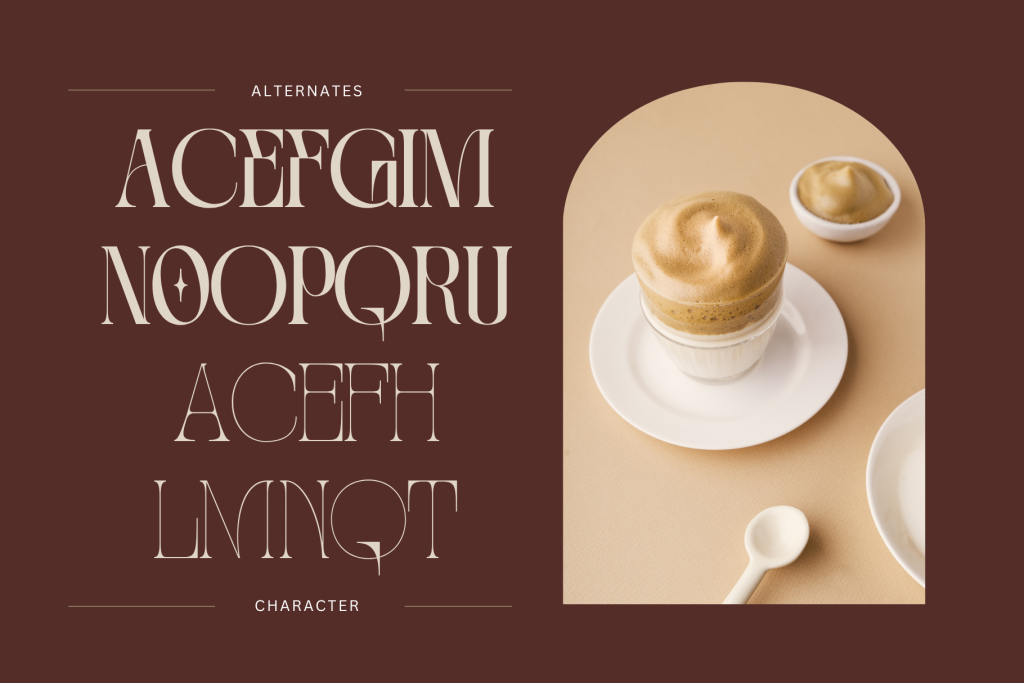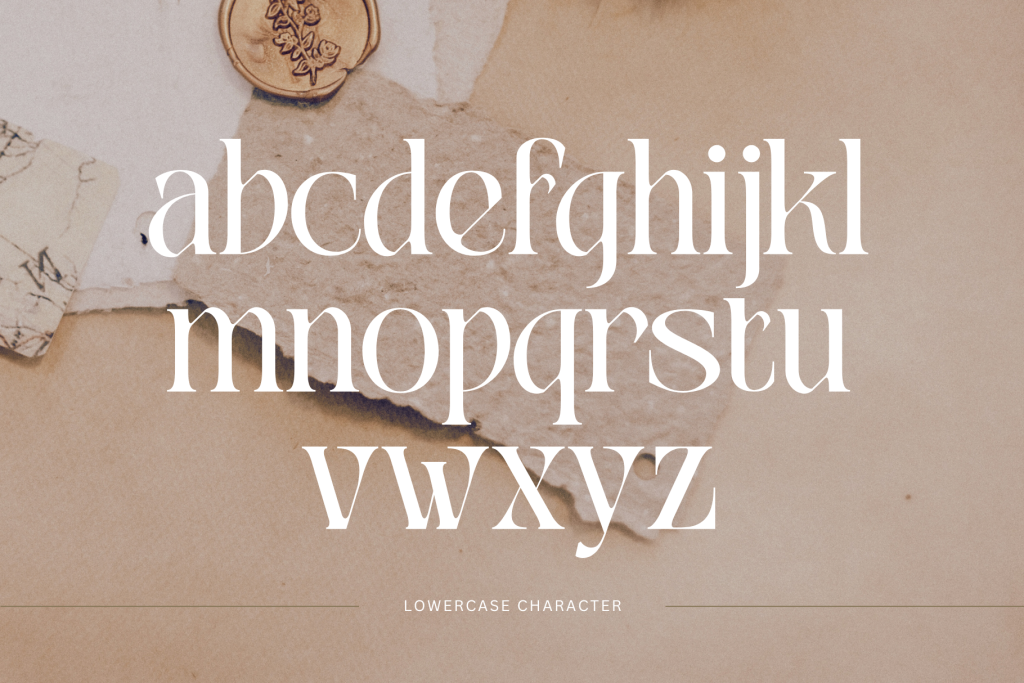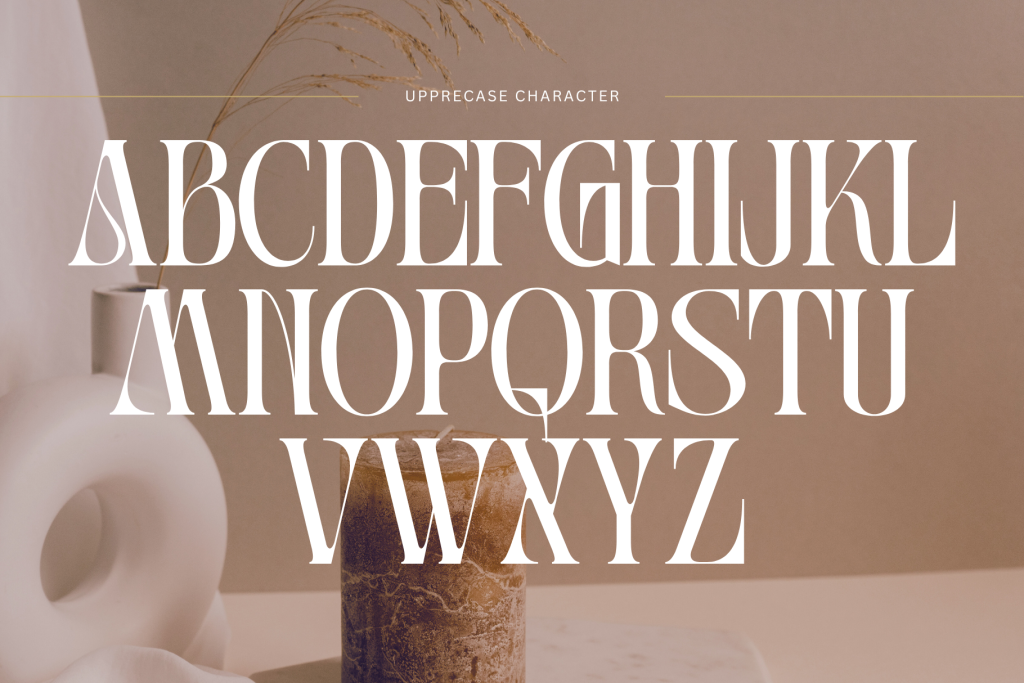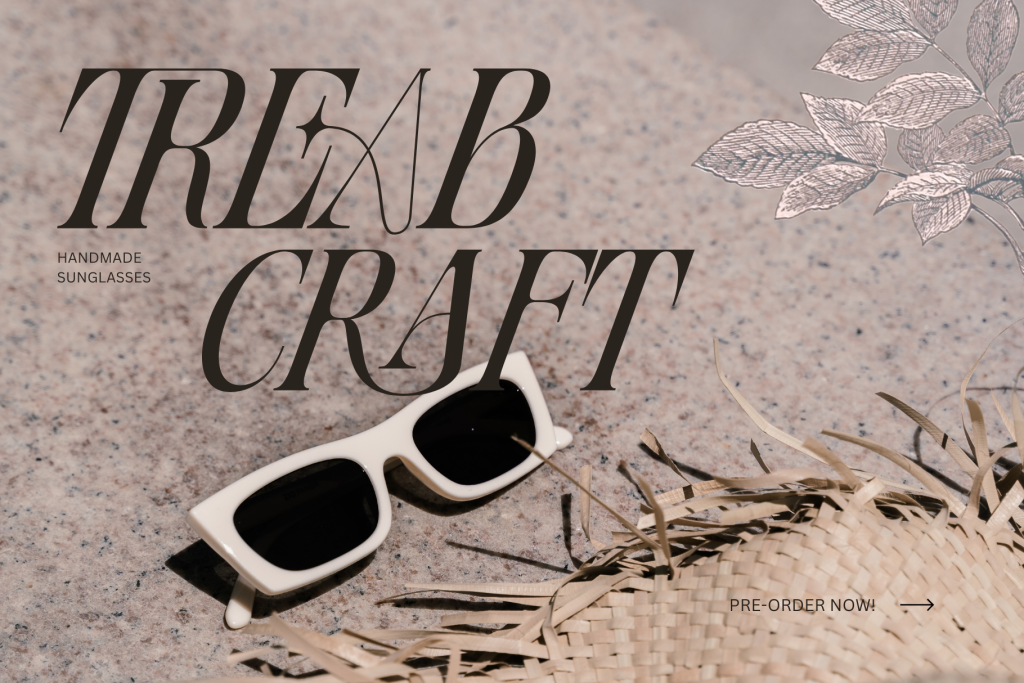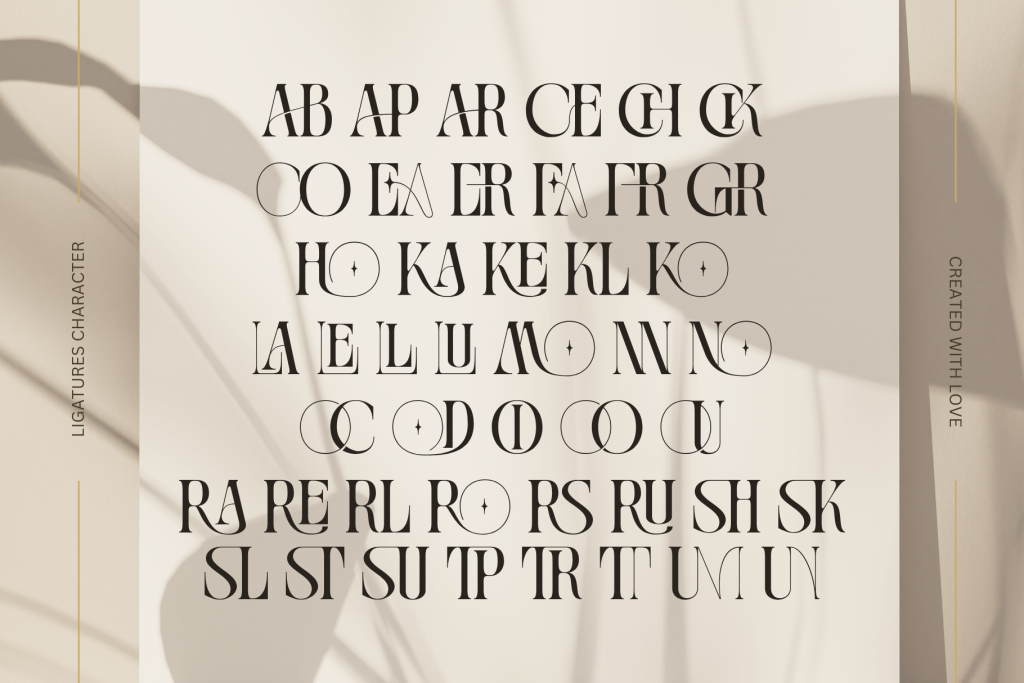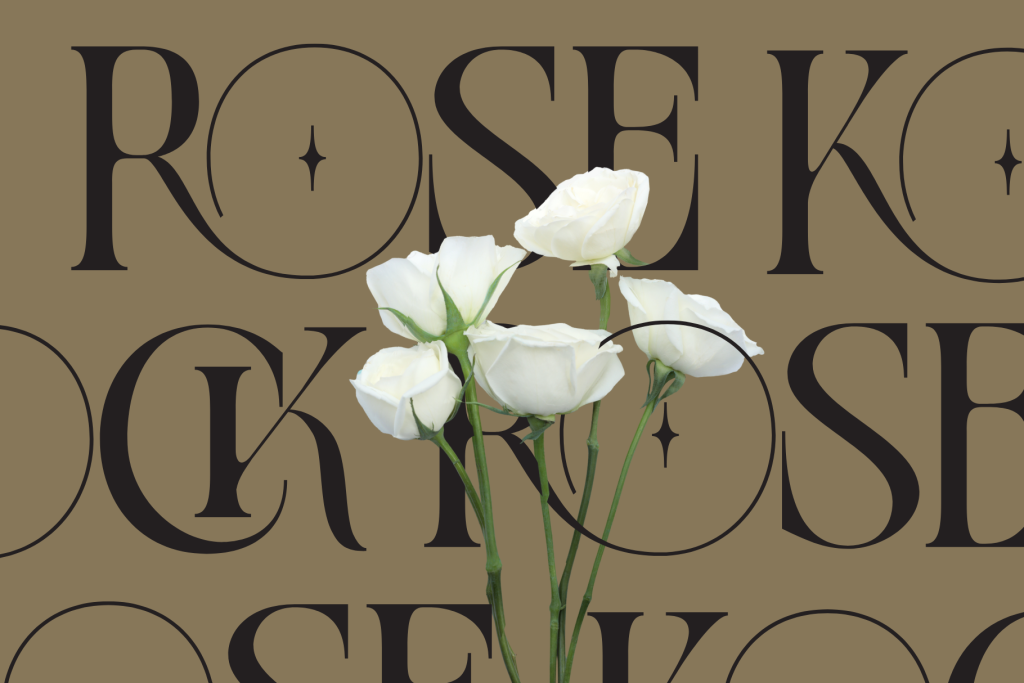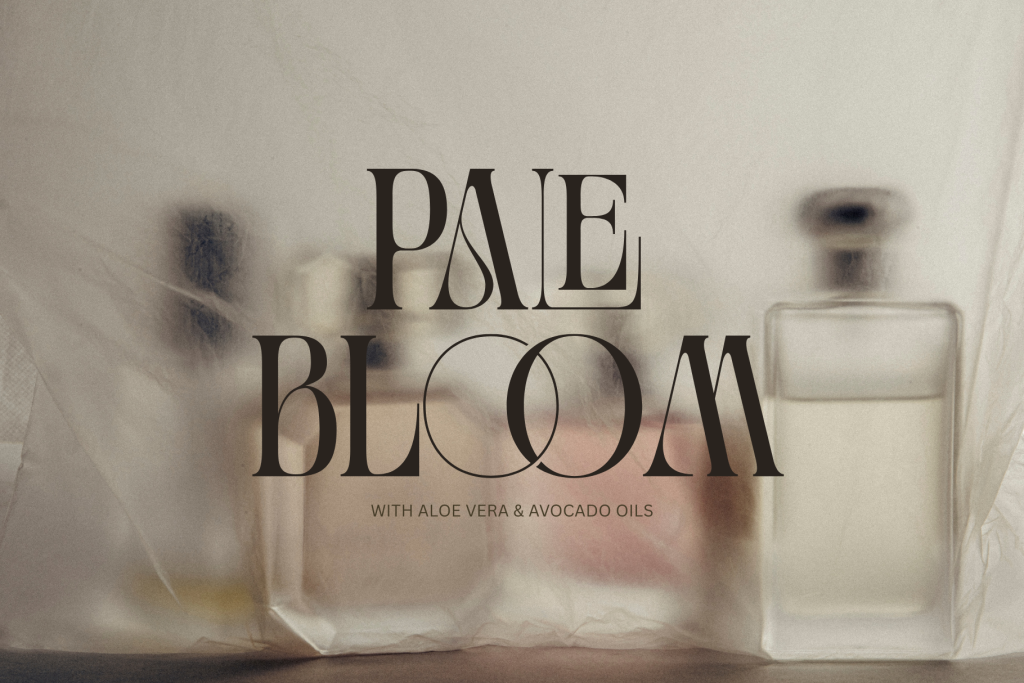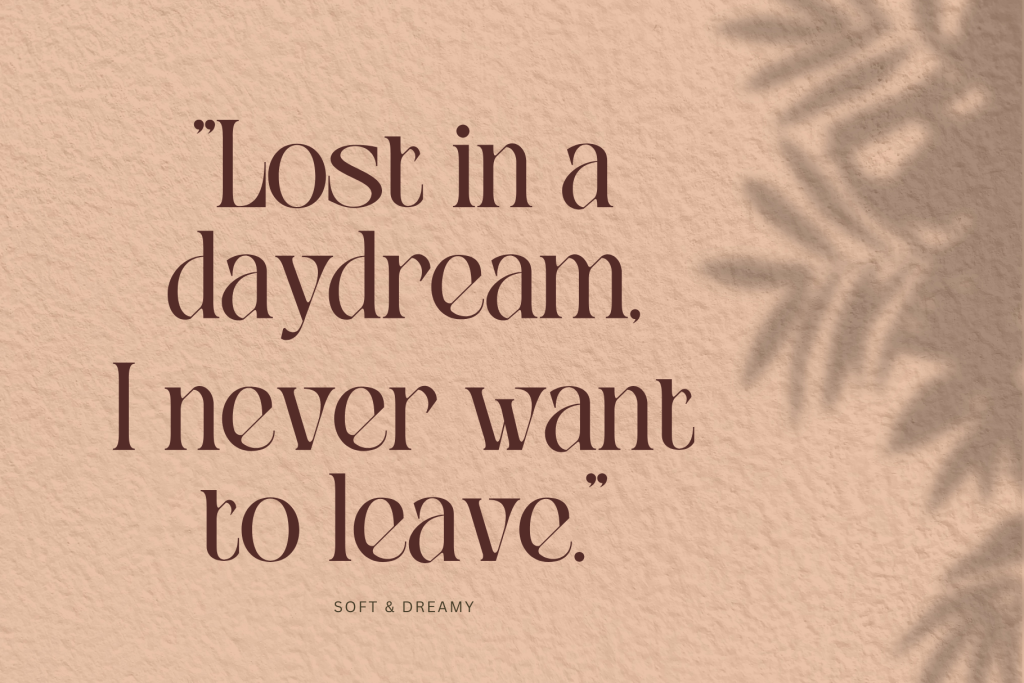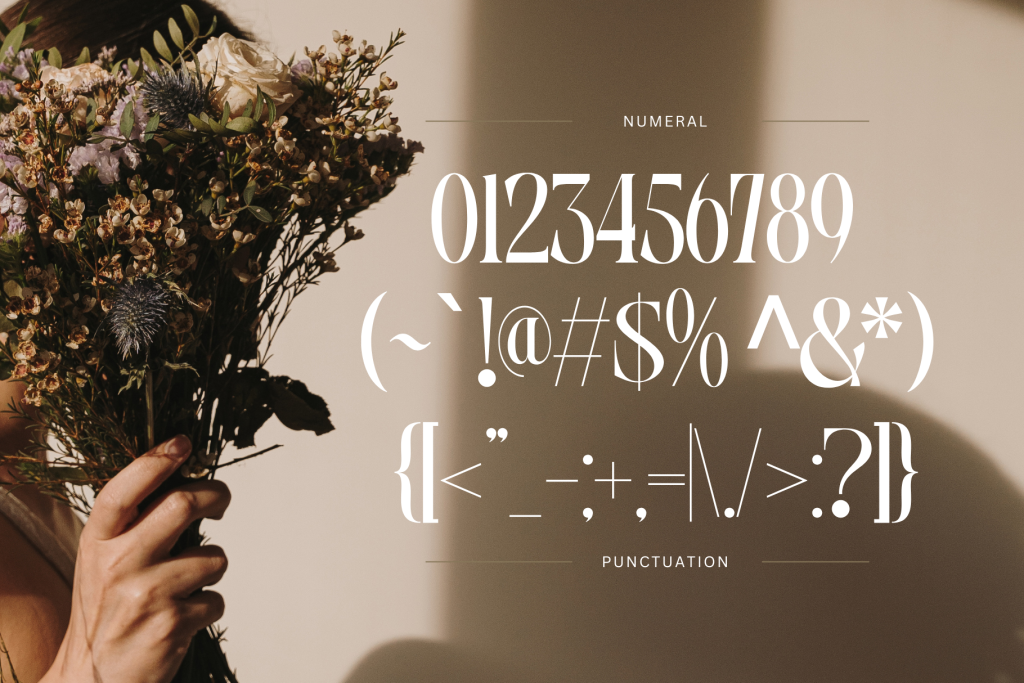
Moshra Aesthetic – Modern Logo Font
Moshra Aesthetic offers beautiful typographic harmony for a diversity of design projects, including logos & branding, social media posts, advertisements & product designs.
• Multilingual Support
• Regular & Italic Font
• Aesthetic With Ligatures
Moshra is an aesthetic font that combines elegance and modern charm with soft curves and balanced forms. Available in Regular and Italic styles, it brings a graceful, artistic touch to any design. Ideal for branding, social media, and creative projects, Moshra’s refined letterforms evoke a sense of calm beauty and minimalism, making it perfect for those seeking a clean yet expressive visual tone.